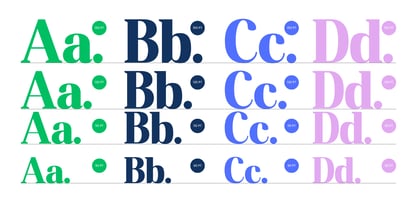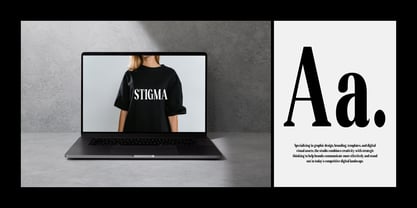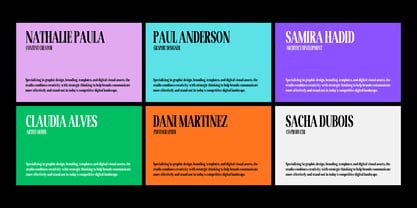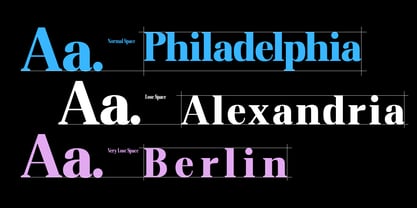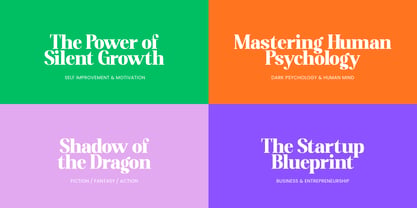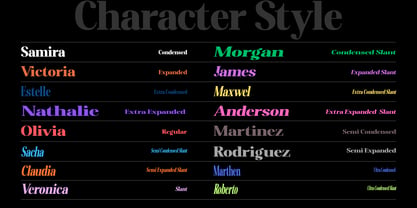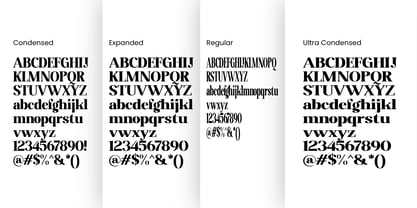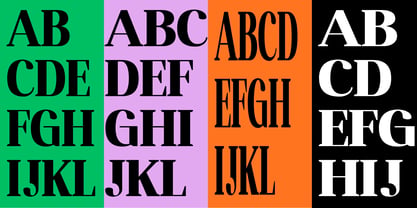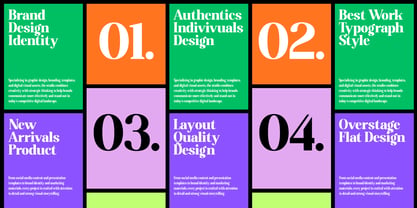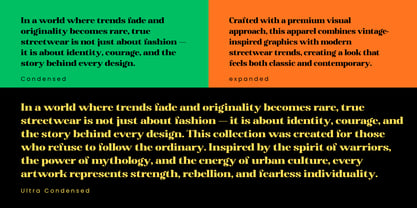
Altaries
by Gatype
The Altaries Font Family was designed by khaidir and published by Gatype. Altaries contains 16 styles and family package options. More about this family
Elegant, graceful, and classy. Altaries is a versatile serif font with a classic and elegant appeal. It is multilingual.
Altaries is a family of elegant, modern, and contrasting serif fonts. It includes both upright and italic styles, each with 16 weights ranging from thin to bold. It is a versatile font perfect for any project, contrasting, modern, and easy to read. With this font, you can create logos, use it in advertisements, packaging, book and magazine covers, titles, descriptions, and more.
Altaries Family Features: Multilingual support for multiple languages.